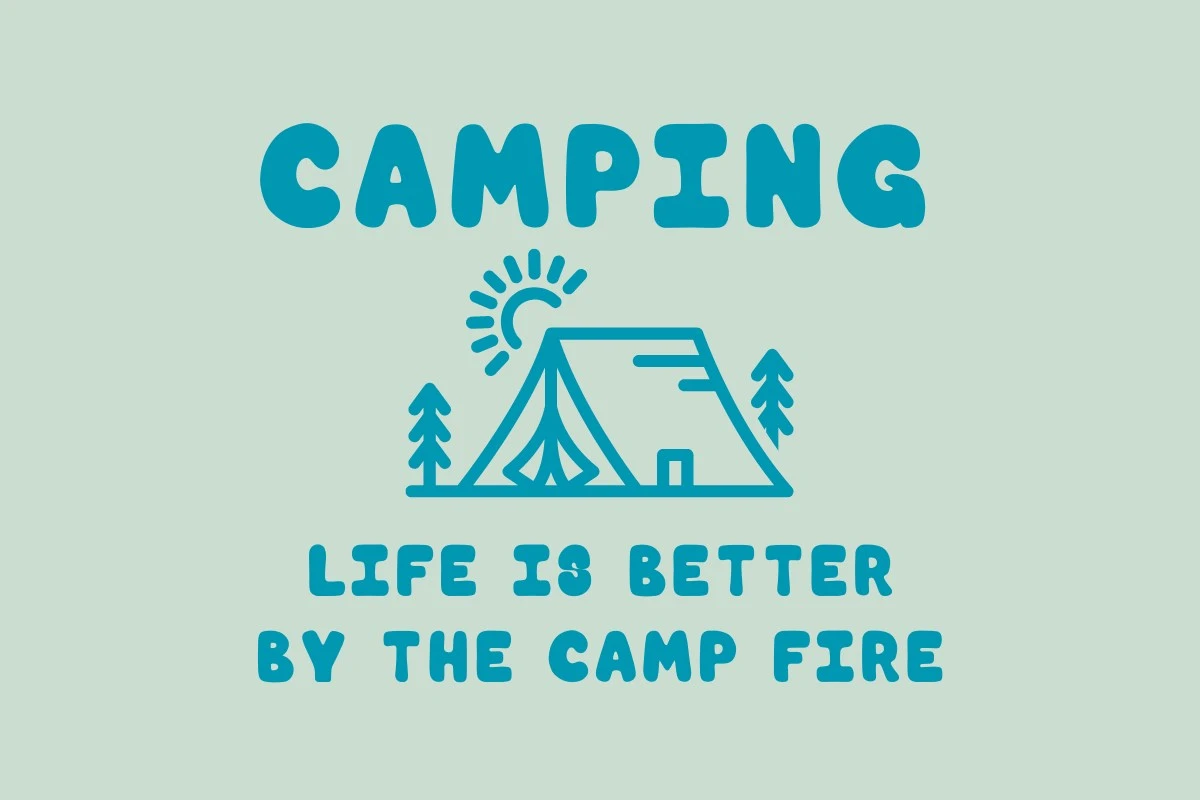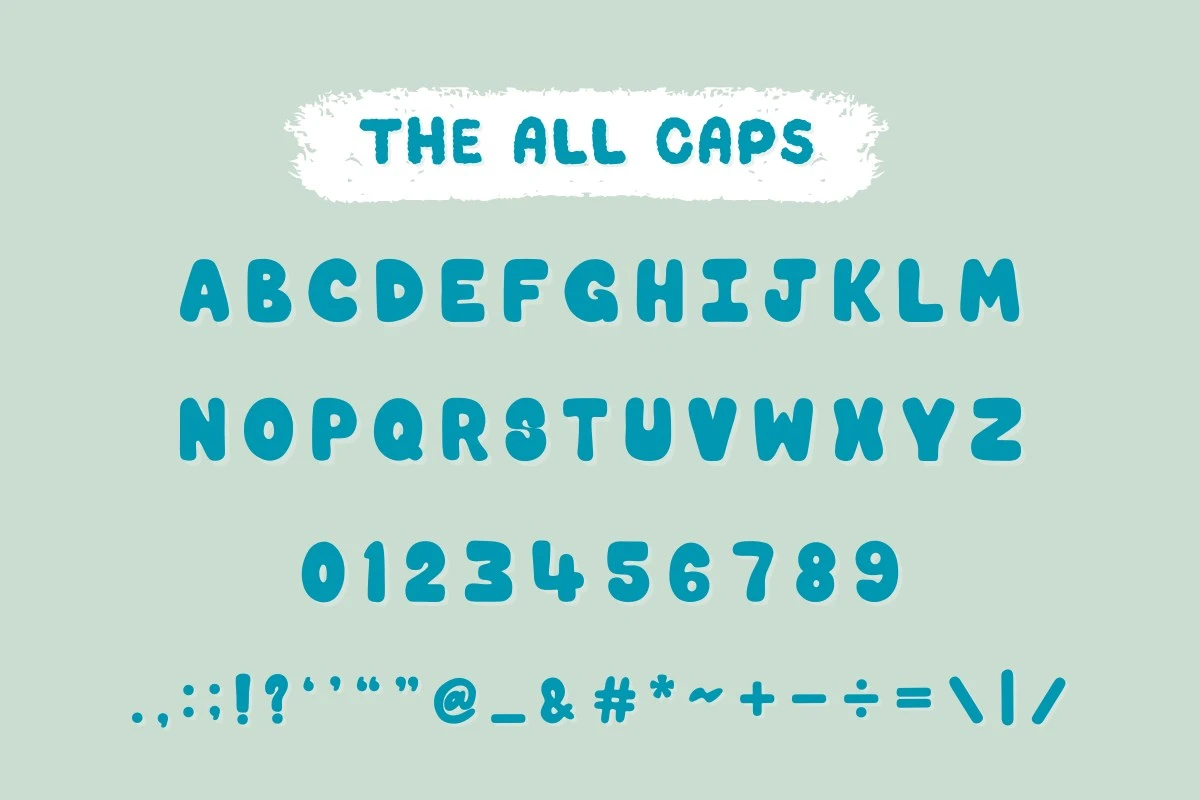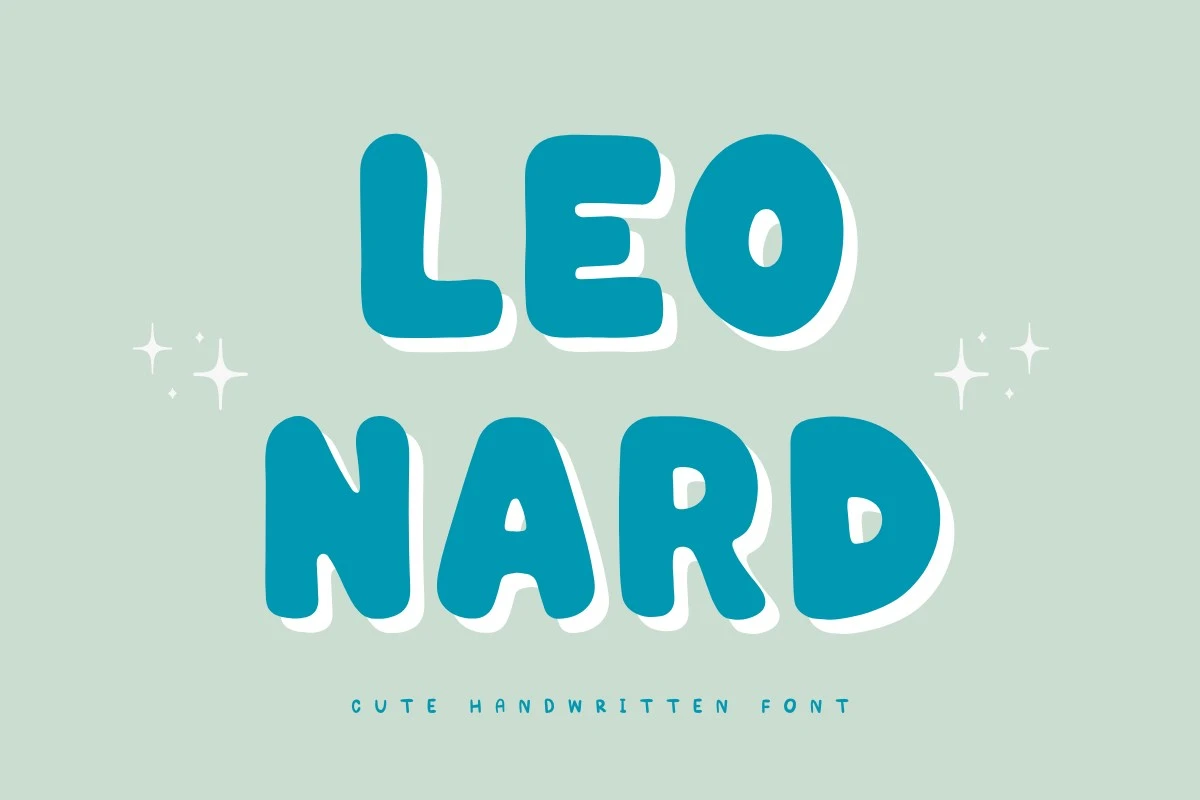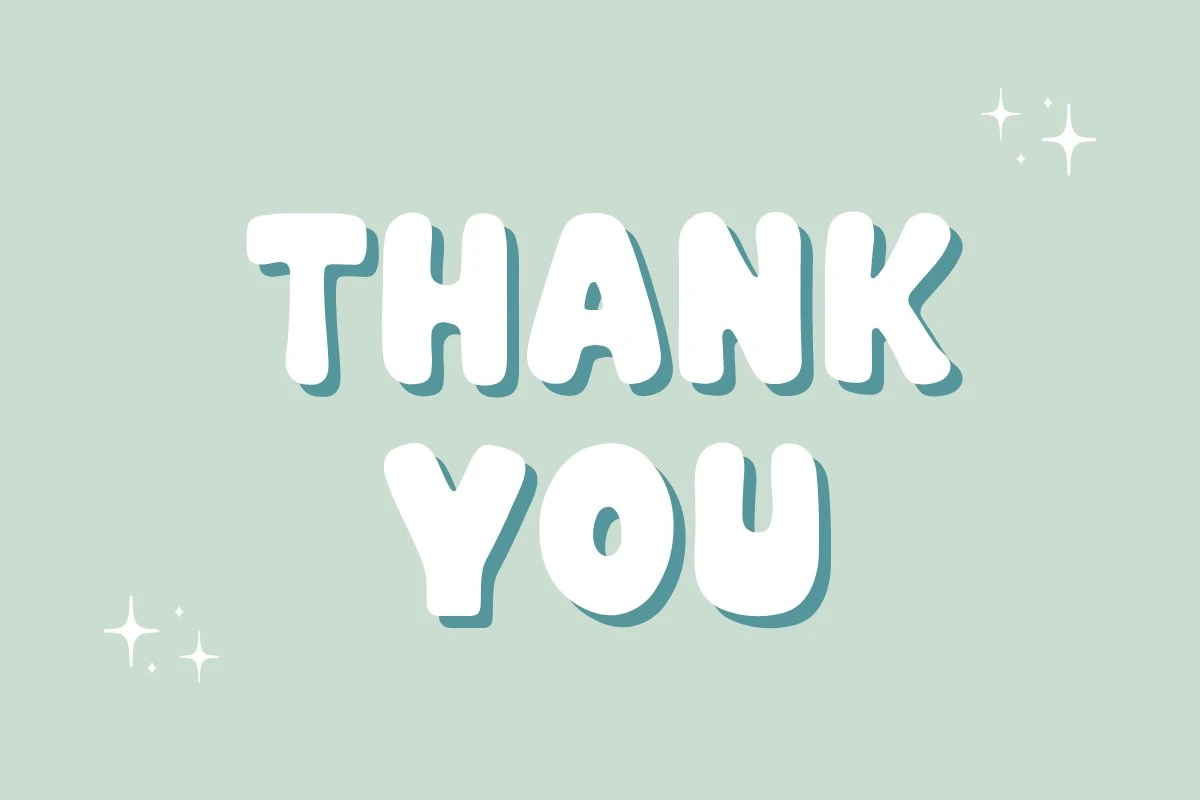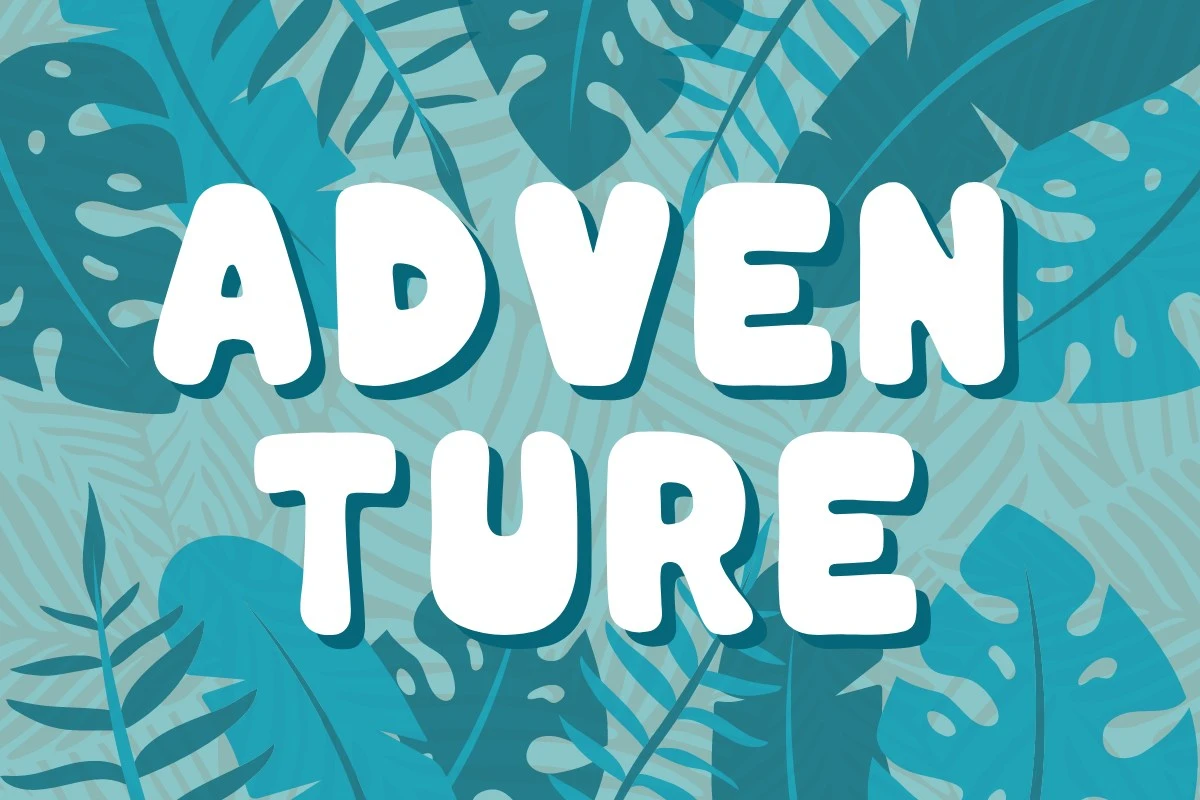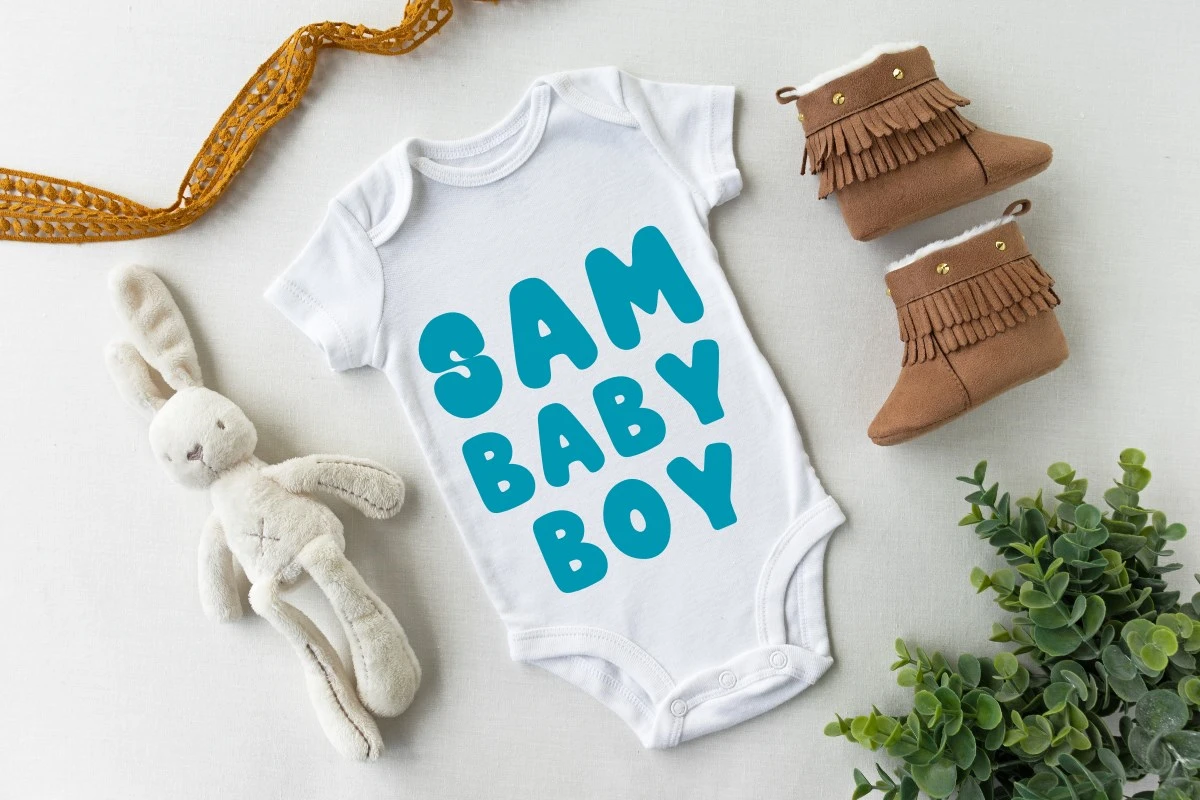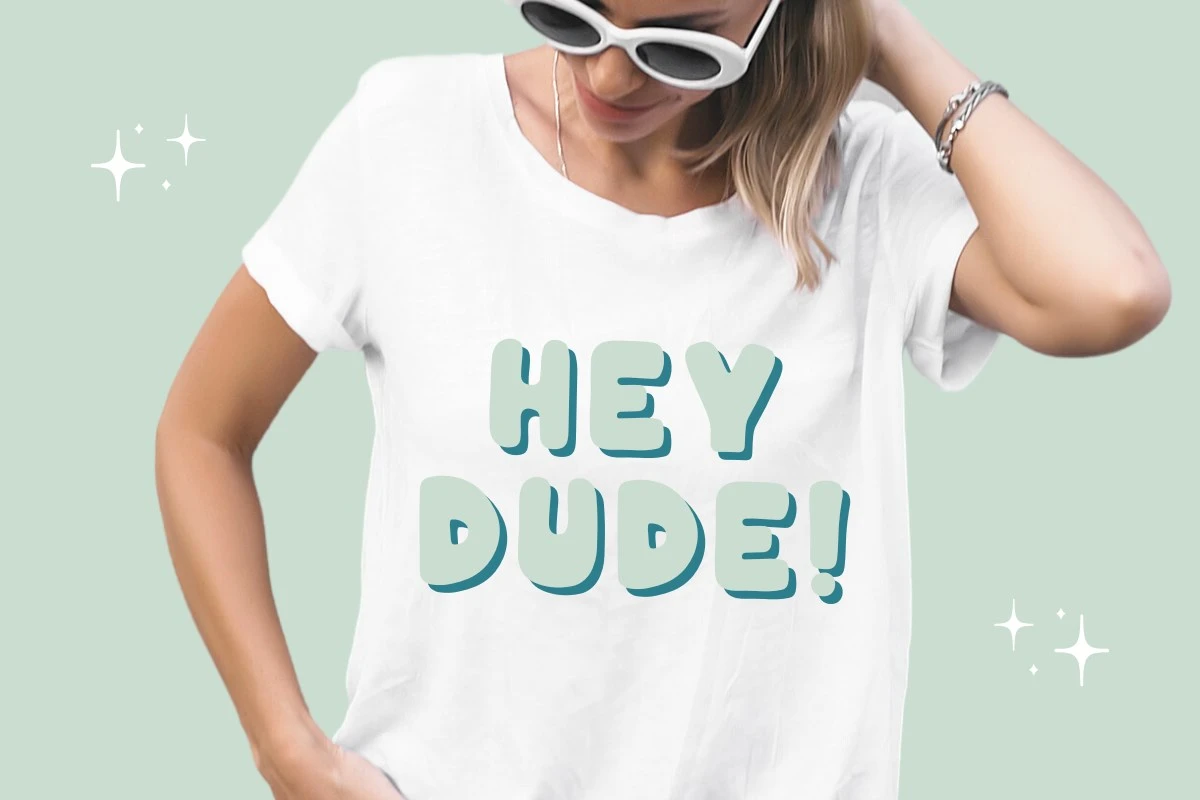
Leonard is a cute handwritten display font that conveys a simple and lovely feel. This font features soft, rounded edges and a slightly irregular baseline to create a natural, whimsical feel. It is versatile and well-suited for a variety of applications, such as greeting cards, invitations, posters, social media, silk screens, and sublimation.